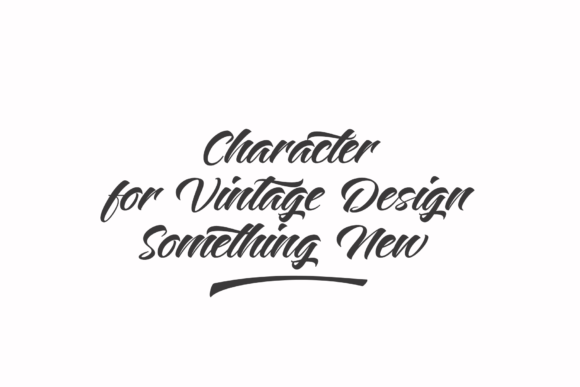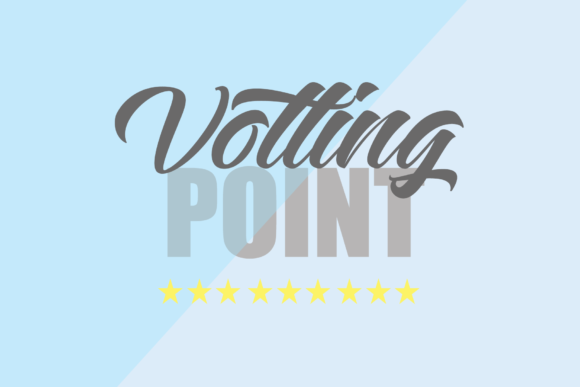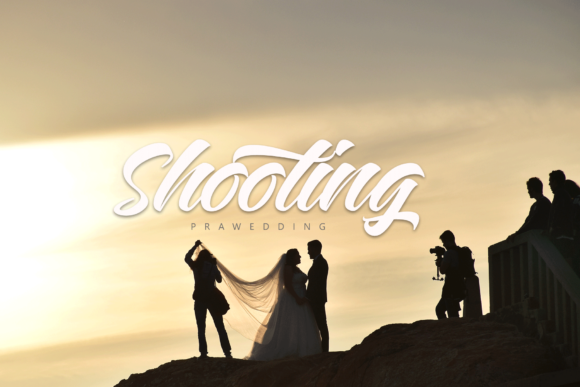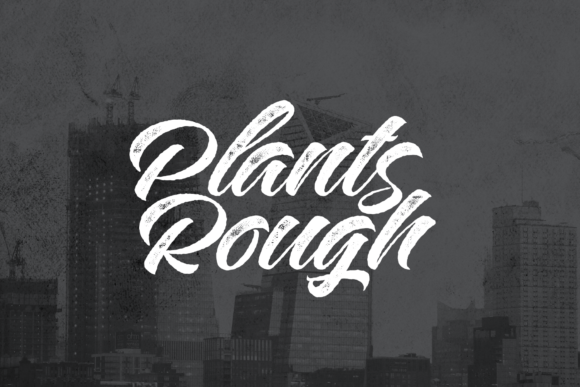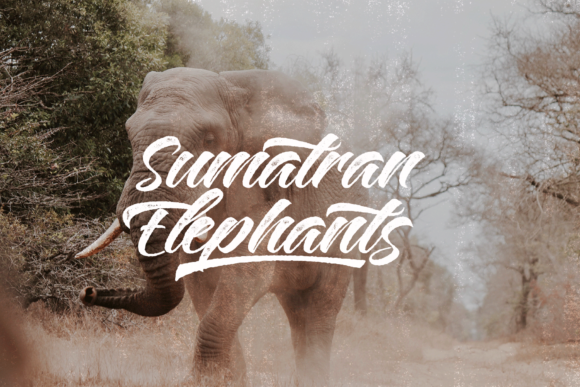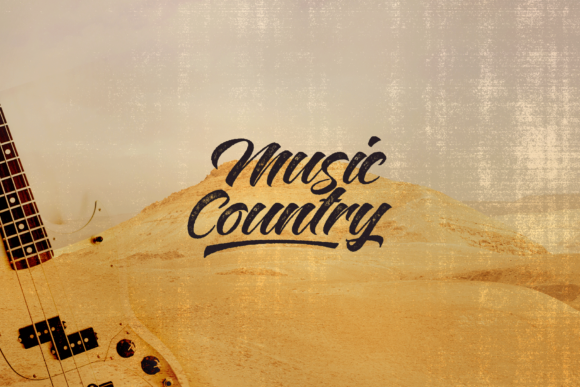
Introduction to Plants Font
Remember the moment when you stumbled upon that perfect Instagram caption that perfectly captured the essence of your latest creative project? You wanted to make it stand out, to add that extra touch of personality and whimsy that would make your followers swoon. And then, it hit you – the right font could make all the difference. Enter the Plants Font, a charming and casual handwritten font that’s about to revolutionize your design game.
Whether you’re a seasoned designer or a creative enthusiast, the Plants Font is an invaluable resource that’s sure to elevate your projects to the next level. Its friendly feel and high-quality design make it a perfect fit for any DIY project, from wedding invitations to custom t-shirts. With a transparent background and free download option, you can experiment with this font without any restrictions, making it an ideal design resource for any creative endeavor.
Key Features of Plants Font
- High-quality design resource perfect for creative projects, including illustrations, graphics, and more.
- Unique, hand-drawn illustrations that add a touch of whimsy and personality to any design project.
Honest Review: Plants Font
As a designer, I’m always on the lookout for high-quality fonts to elevate my creative projects. Recently, I had the chance to try out the Plants Font and I must say it’s been a game-changer for my design work.
What works well: ✨ The Plants Font has a unique, hand-drawn feel that adds a touch of whimsy to any project. The transparent background allows for seamless integration with other design elements, making it perfect for creative projects. The font is also incredibly versatile, with a range of weights and styles to choose from.
- High-quality, detailed design
- Range of weights and styles to choose from
Limitations: ⚠️ One thing to keep in mind is that the Plants Font is a relatively new release, so there may be some minor bugs or issues to iron out. Additionally, the font may not be suitable for use in very small sizes or at high resolutions.
Overall, I’m thoroughly impressed with the Plants Font. It’s a fantastic addition to any design resource library and I highly recommend it for any creative project. With its unique design, versatility, and high quality, it’s a must-have font for any designer.
Tips for Getting the Most Out of Plants Font
Experiment with different font sizes and colors to create visually appealing text effects. You can also combine Plants Font with other fonts to create a unique and creative look.
Plants Font is ideal for use in garden-themed designs, nature-inspired artwork, and eco-friendly branding. It’s also a great choice for creating invitations, flyers, and brochures that require a natural and earthy feel.